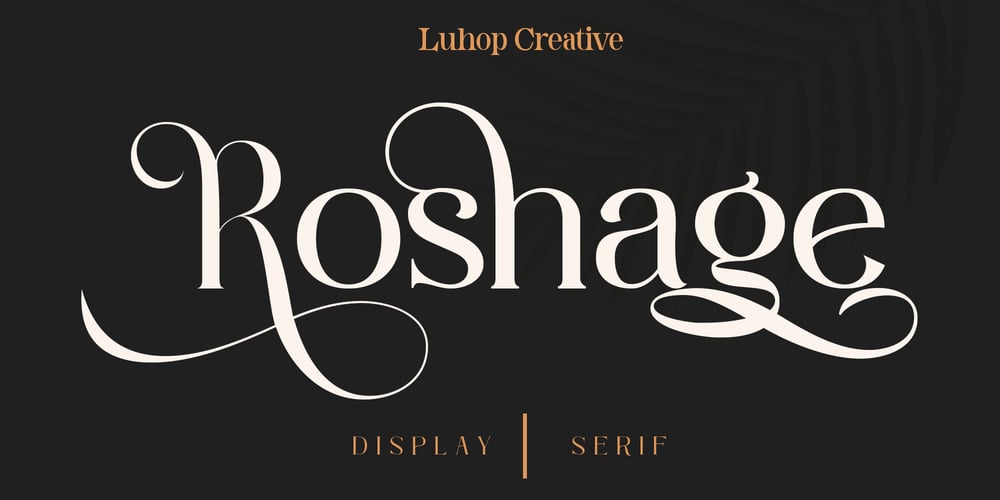
Roshage Font Family was designed by Arif Fadilah and published by Luhop Creative. Roshage contains 2 styles and family package options. Roshage is an elegant, stylish and assertive serif font. This font is PUA encoded which means you can access all glyphs and swashes with ease!The elegant modern font serif creates a unique design and is sure to steal the eye of the design target audience. Besides being unique, the Roshage font also has a luxury simple character that makes the design charming and luxurious. Grogie excels in display settings such as headlines, titles, branding projects, Logo design, packaging, magazine headings, advertising,YOU GET:Multilanguange.Thank you!